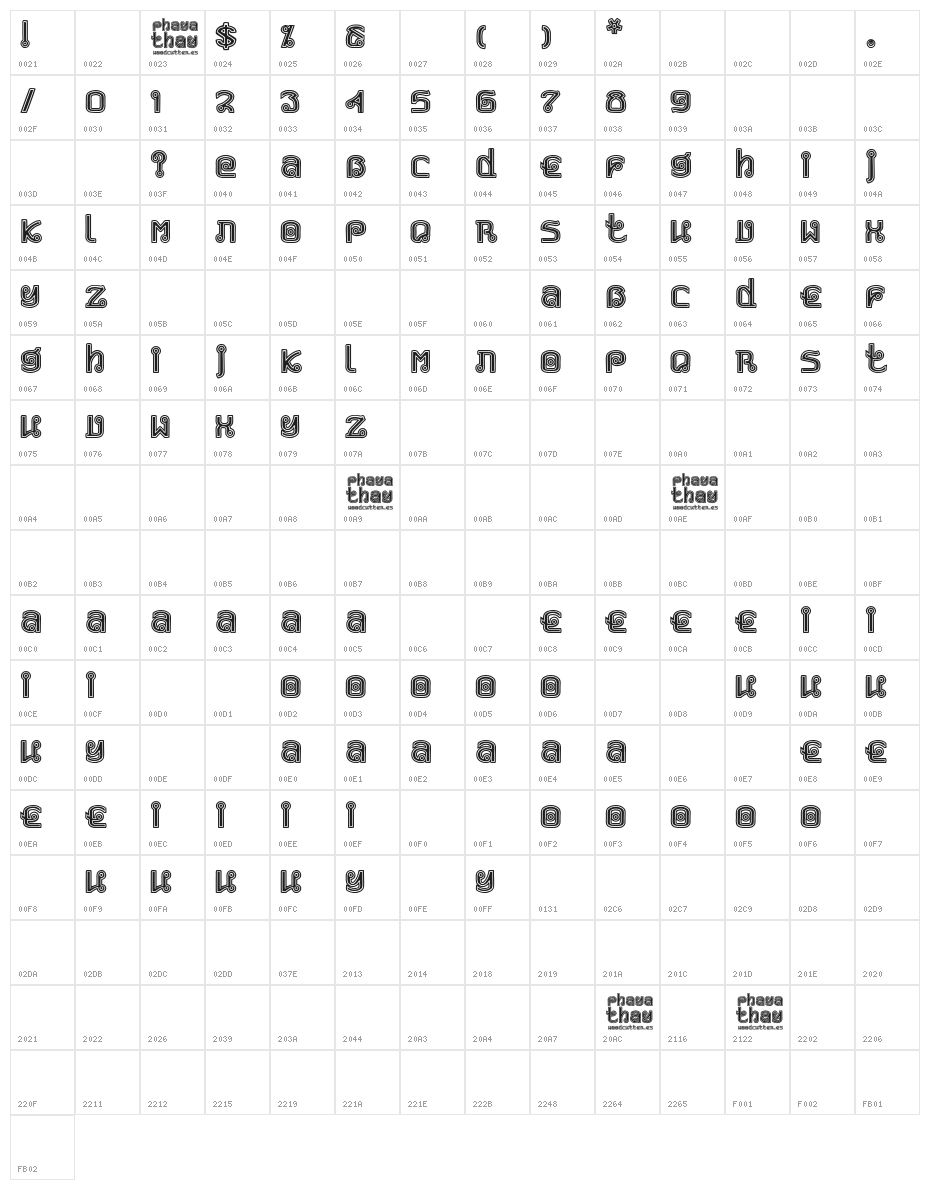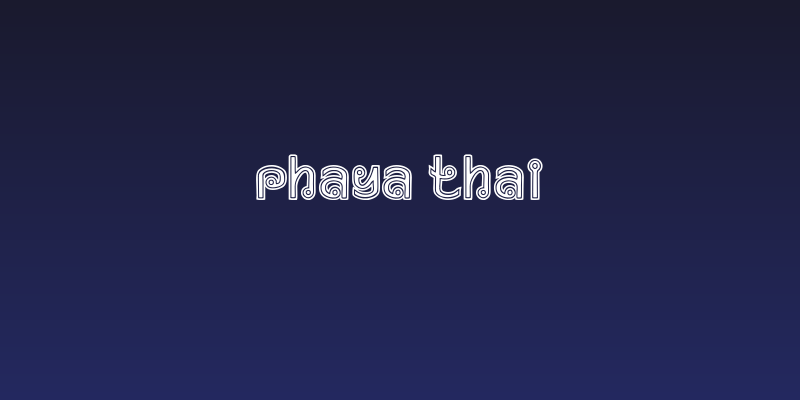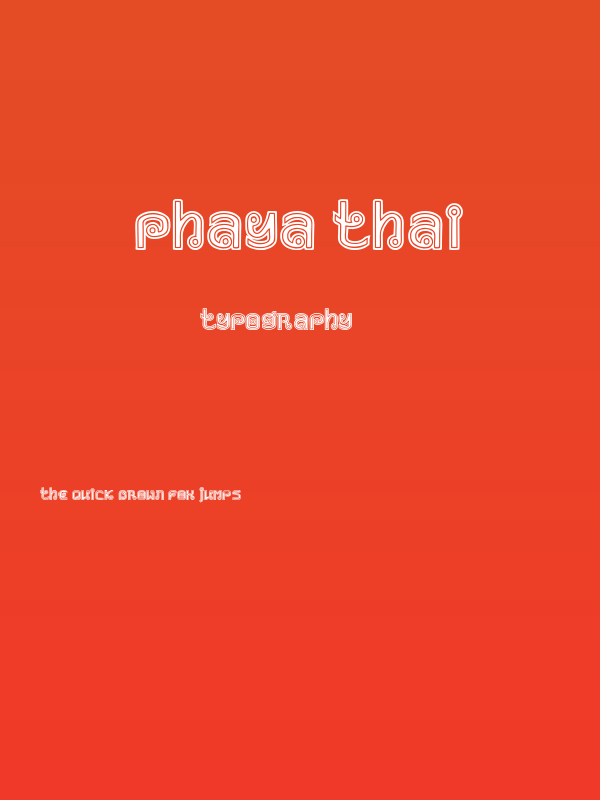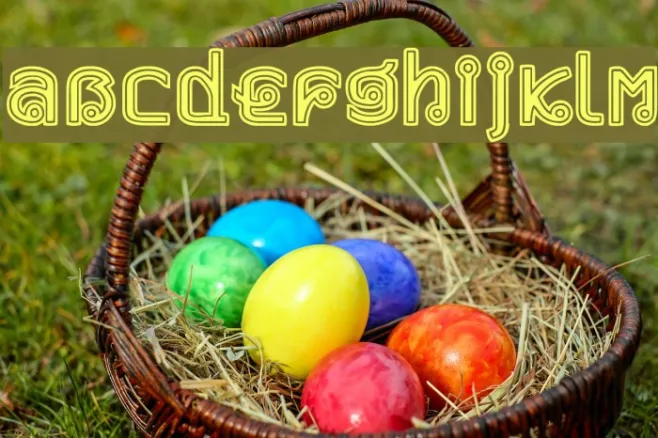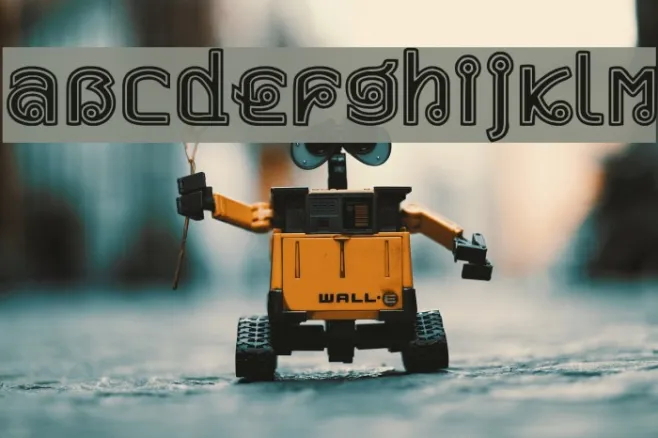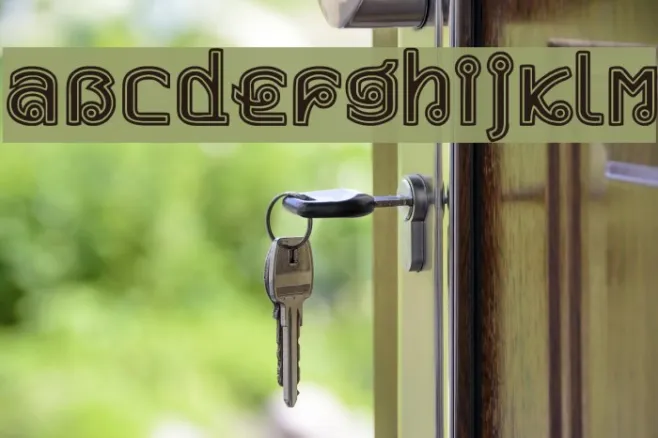
Phaya Thai Font
Phaya Thai Description
This font features a bold, decorative style with a unique outline effect that gives each character a three-dimensional appearance. The letters are rounded and have a playful, retro vibe, reminiscent of vintage signage or arcade game aesthetics. The design incorporates a double-line structure that adds depth and visual interest, making it stand out in any design project. The font maintains consistent proportions across both uppercase and lowercase letters, ensuring readability while still offering a distinct artistic flair. Numbers and special characters follow the same stylistic approach, providing a cohesive look throughout.
PHAYA-THAI UPPERCASE
PHAYA-THAI LOWERCASE
PHAYA-THAI OTHER CHARS
| Proposed Projects | Ideal for retro-themed posters, video game graphics, or eye-catching headlines. |